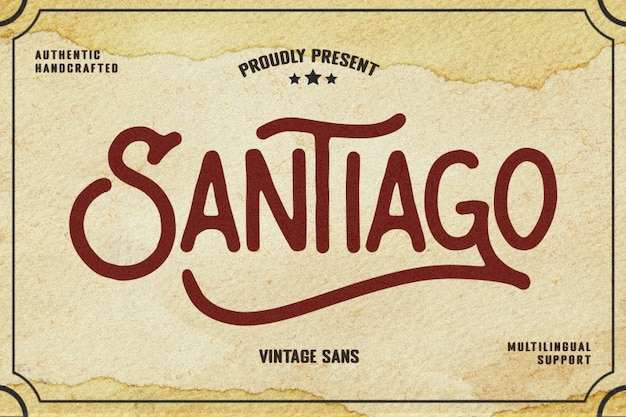
Santiago Font
Santiago is like stepping into a time capsule of vintage coolness. It's the font equivalent of your grandpa's classic leather jacket, oozing with timeless style. The rounded edges give it a friendly, approachable vibe, perfect for adding a touch of nostalgia to your designs. Whether you're working on a retro poster, a classic logo, or just want to infuse some old-school charm, Santiago's got your back. It's a font that effortlessly blends the best of the past with a touch of modern swagger. So, if you want your designs to exude vintage coolness, Santiago is your secret weapon.